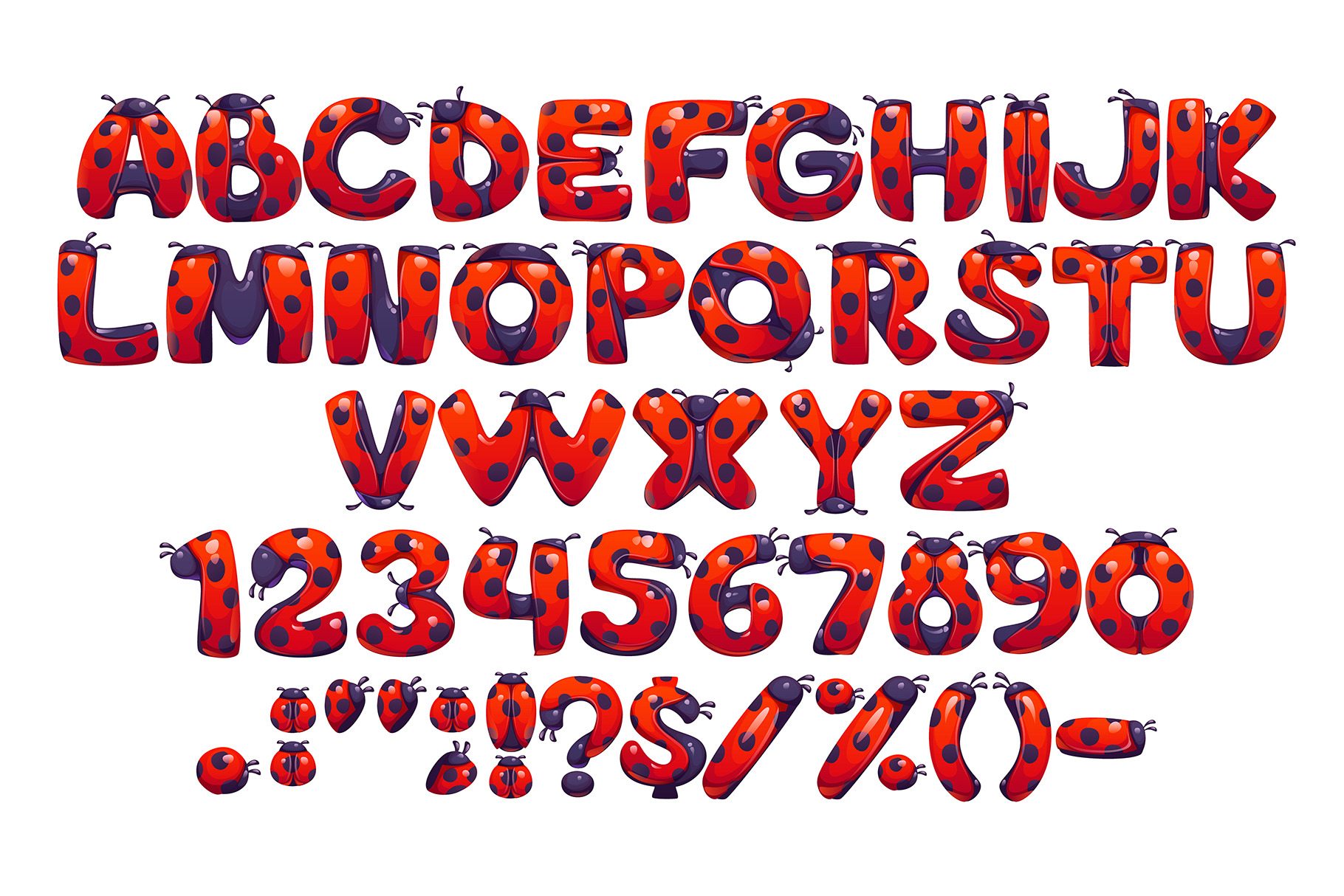
Ladybug font alphabet, ladybird
Ladybug font, ladybird and lady bug typeface, cartoon insect type, funny beetle english alphabet. Vector typography red bug letters and numbers set with black dots. Ladybug or ladybird font alphabet